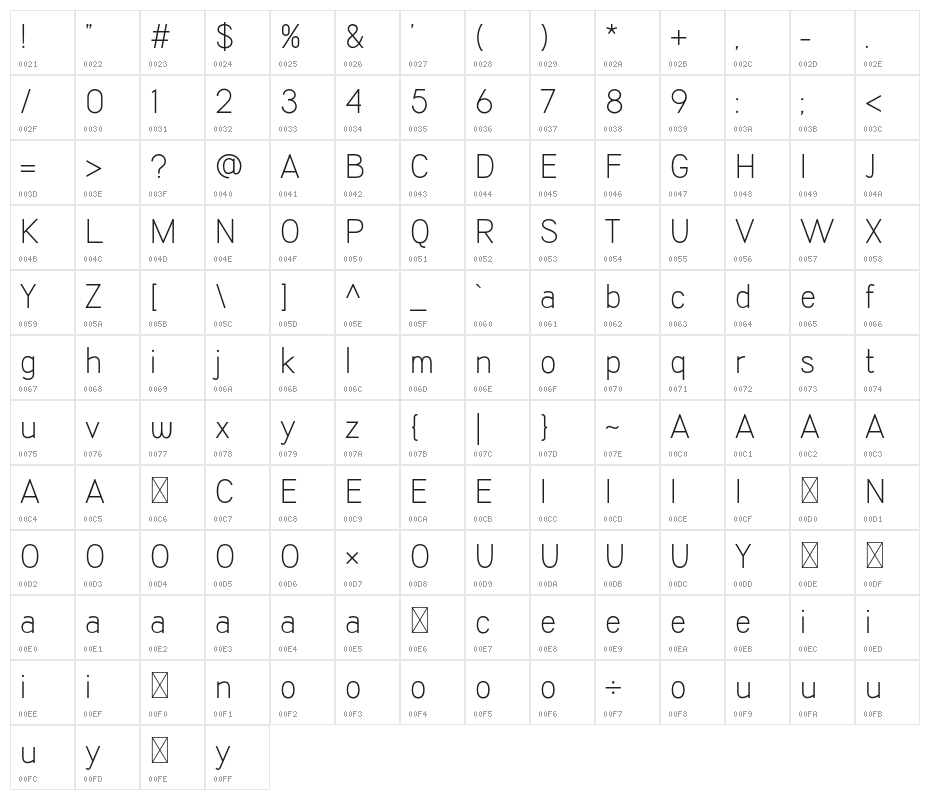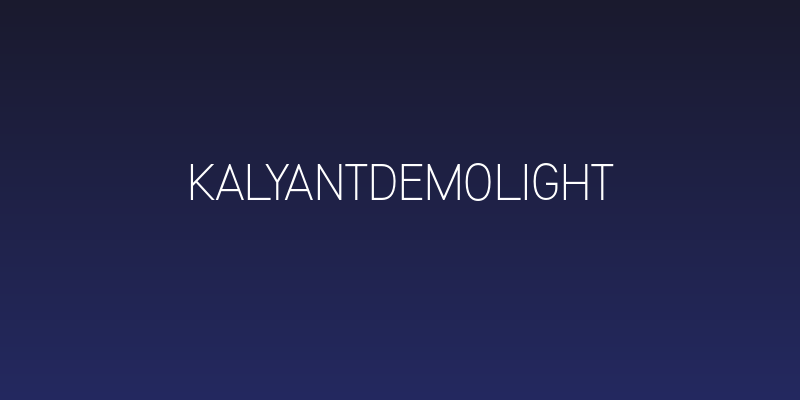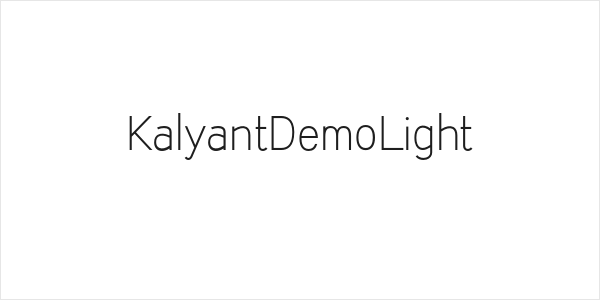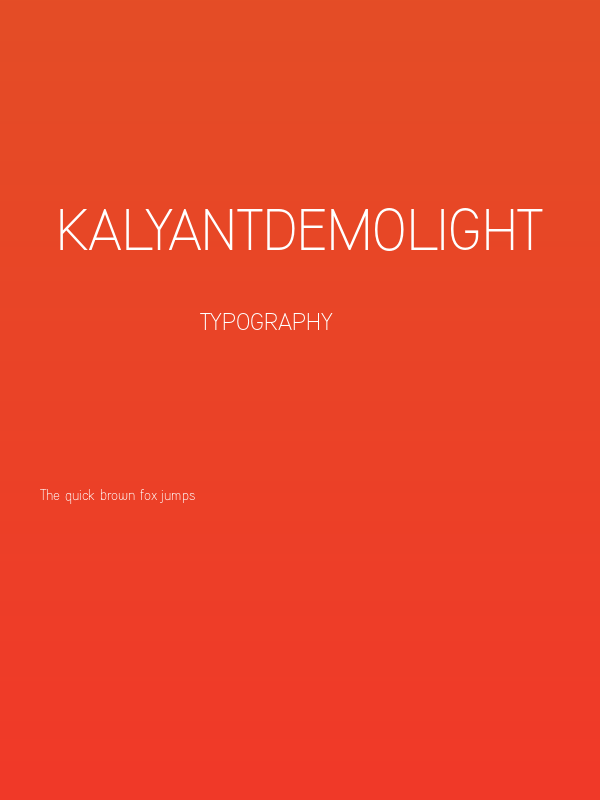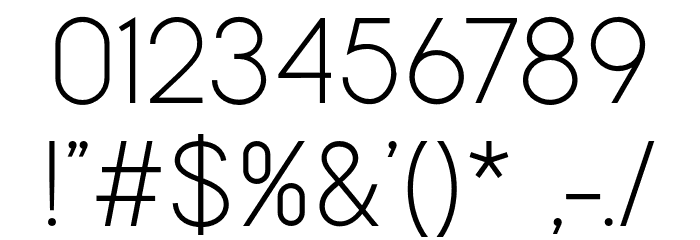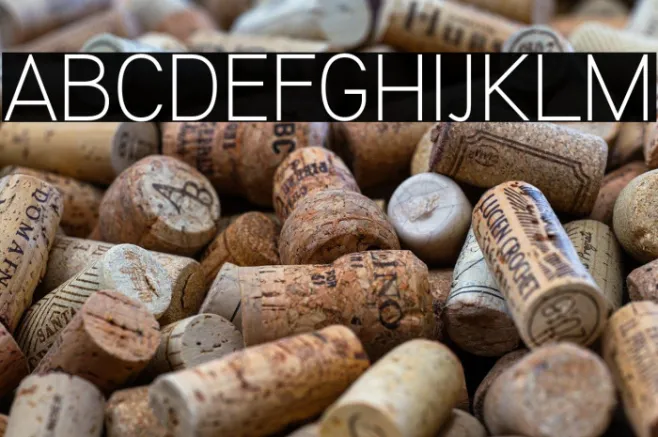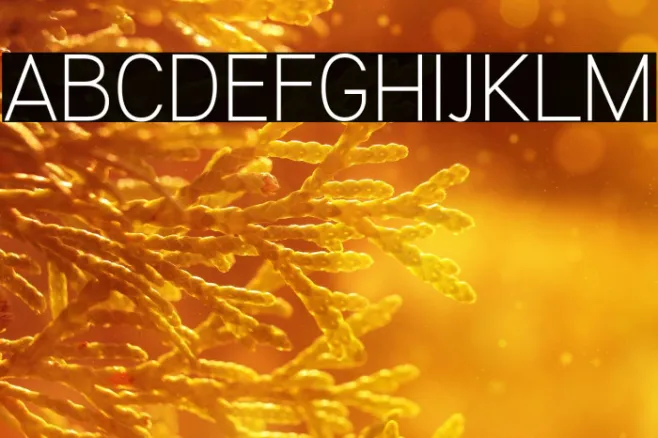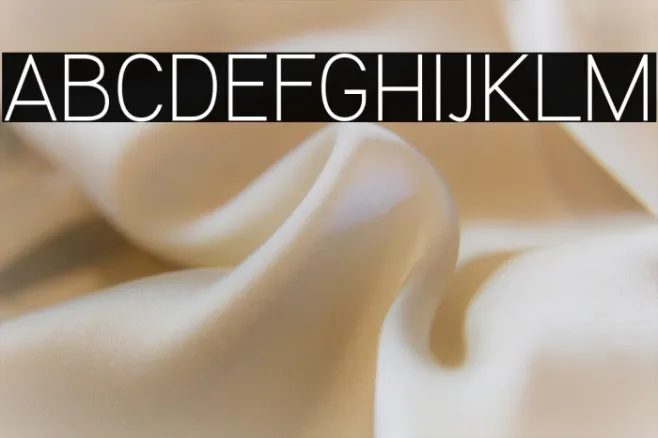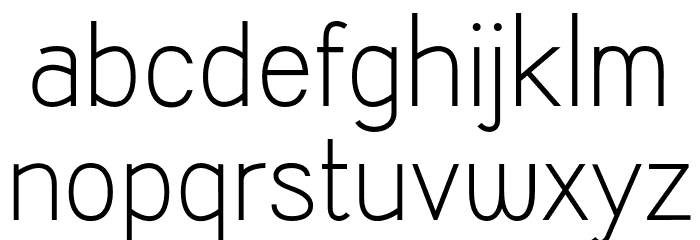
KalyantDemoLight Font
KalyantDemoLight Description
This font features a clean and modern sans-serif design with a light weight, making it ideal for minimalist and contemporary projects. The characters are evenly spaced with a normal width, providing excellent readability. The uppercase and lowercase letters maintain a consistent style, with smooth curves and straight lines that enhance its sleek appearance. The numerals and special characters are designed to match the overall aesthetic, ensuring uniformity across all text elements. This font is versatile, suitable for both digital and print media, and can be used effectively in various design contexts.
| Proposed Projects | Ideal for websites, branding, advertising, and editorial design. |